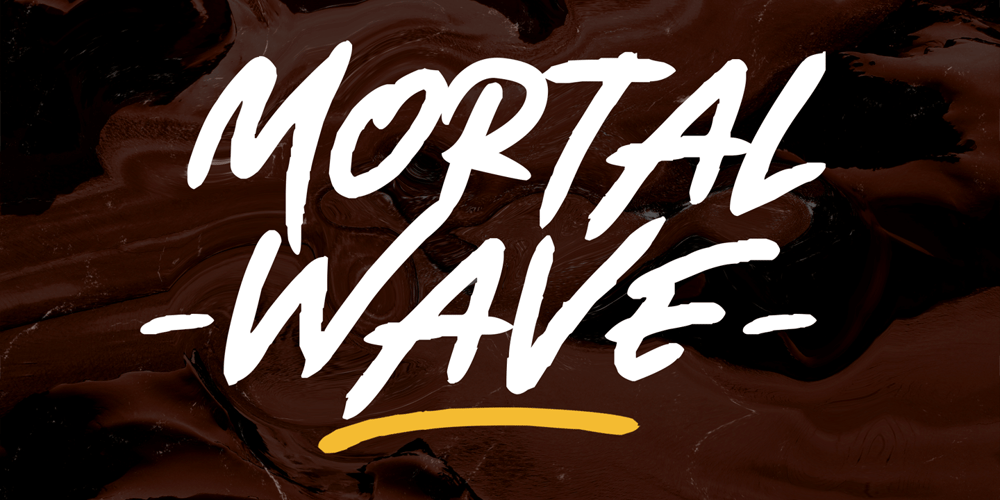
Mortal Wave Font Family was designed by Virgiawan Listanto and published by Stringlabs Creative Studio. Mortal Wave contains 1 styles and family package options. Mortal Wave results out of a stunning pairing of a brush pen and pencil that makes it look incredibly endearing and authentic. Use this gorgeous and unique display font to bring any DIY project to life!